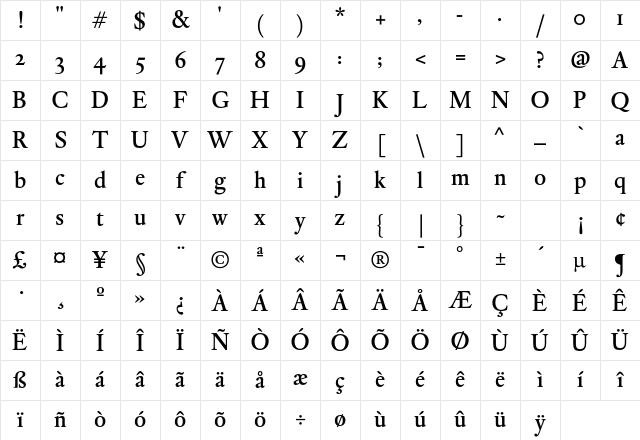
DTL Elzevir ST Medium Free Font
DTL Elzevir ST Medium
Design Context for DTL Elzevir
DTL Elzevir is a composed and adaptable typeface that performs quietly and consistently across a wide range of design contexts.
Pro Tip: Use DTL Elzevir in both headline and body roles to test its range before committing to a single application.